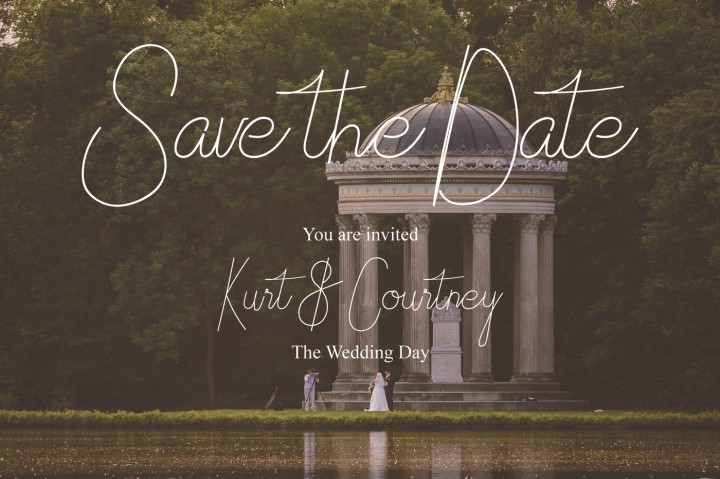
Althype Monoline Script Font
Hello friend, Introducing Althype Script  Font, is handwritten font! It is was designed and shares by TypoBureau Studio. Althype a monoline script with skinny style but seriously looking good if you put this on your special design. just play with it! With a modern script style this font will be perfect for various projects, for example: weddings, invitations, greeting cards, posters, business cards, quotes, blog headers, branding, logos, fashion, clothing, letters, stationery…